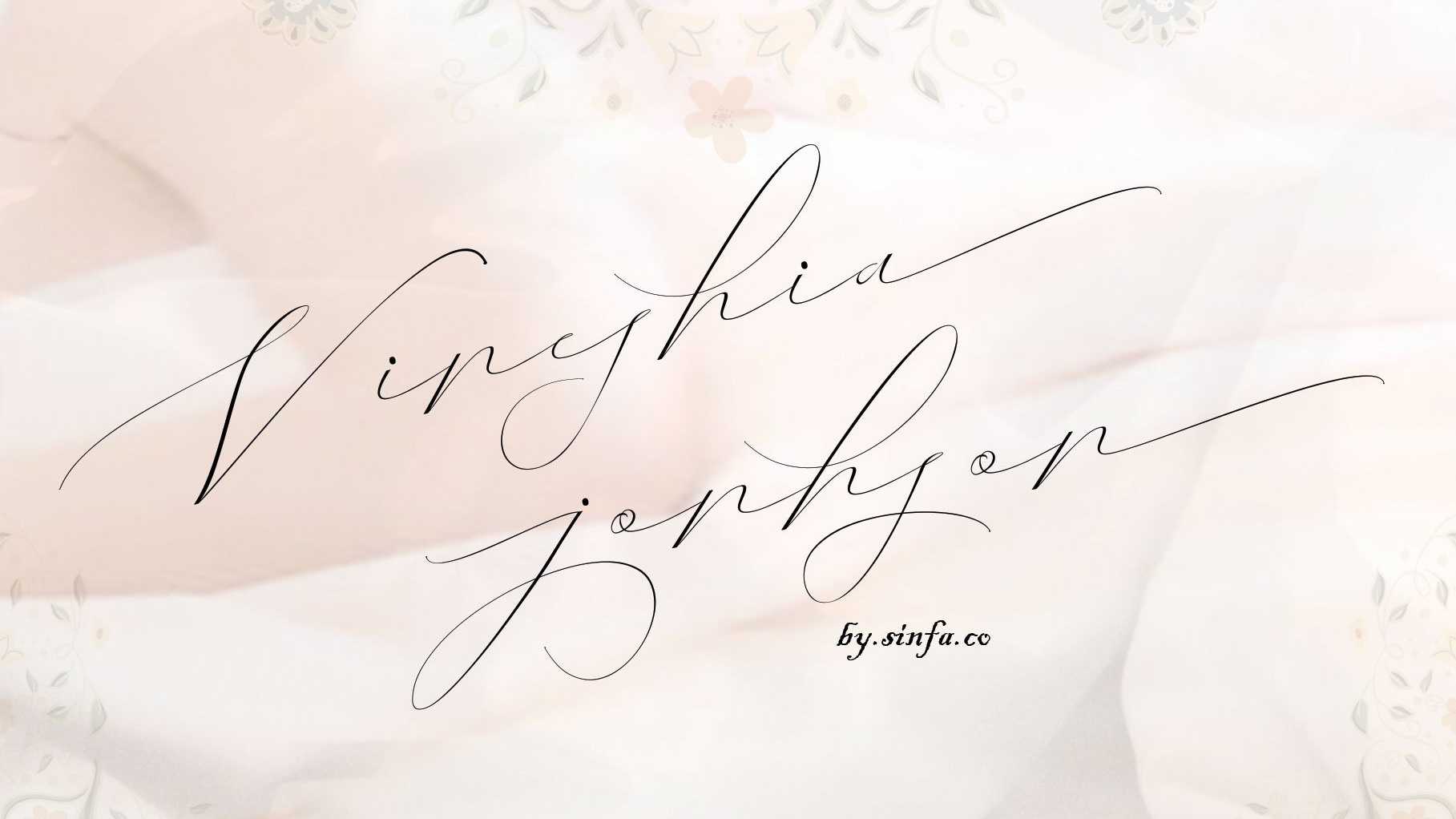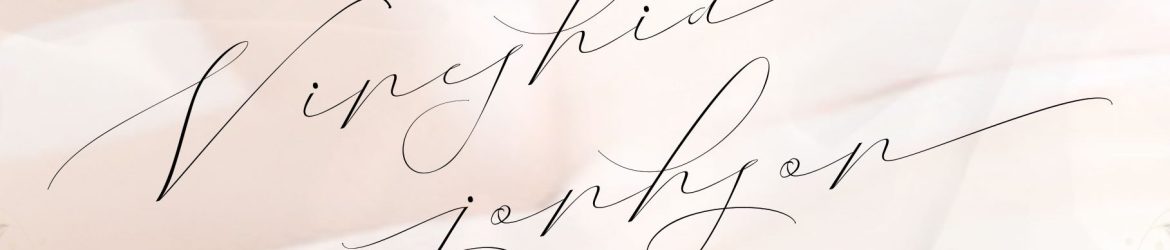
Download Vineshia Jonhson font, something incredibly beautiful! With some interesting initial and final forms, the Vineshia Jonhson font suits your needs in creating logos, invitations, cards, product packaging, headers, and whatever you want.